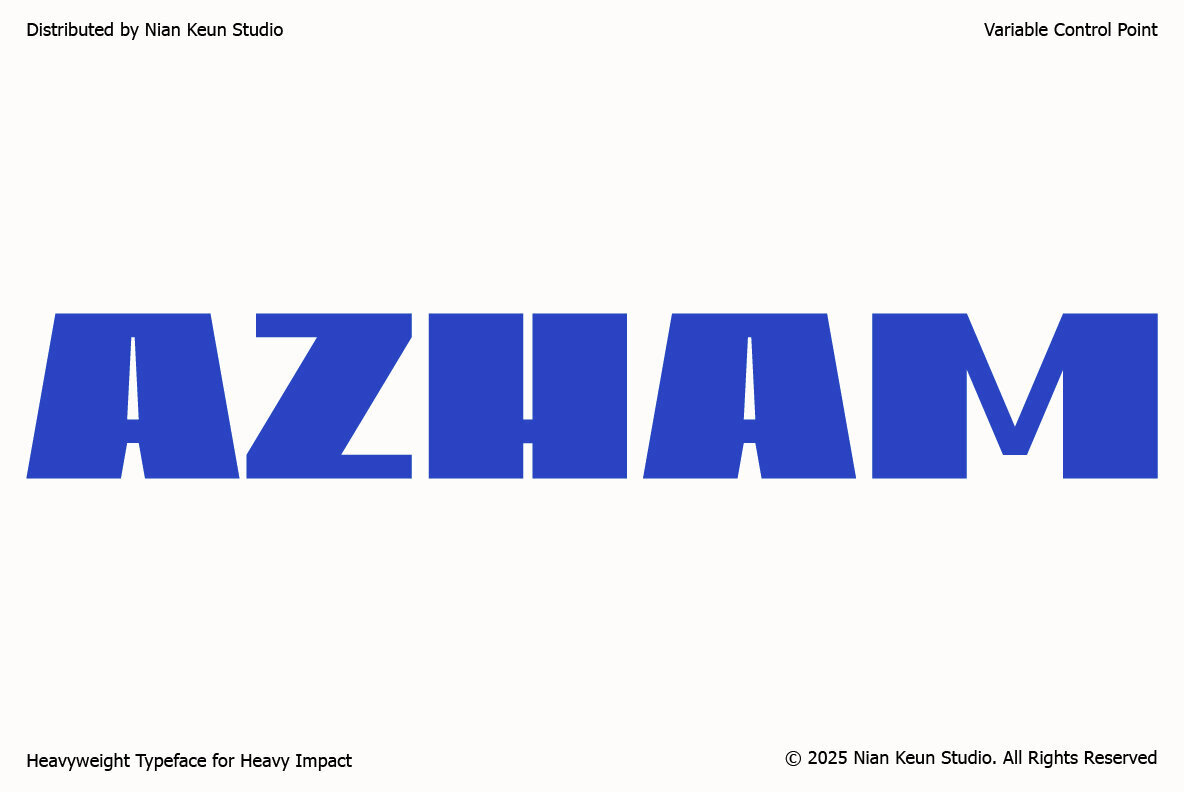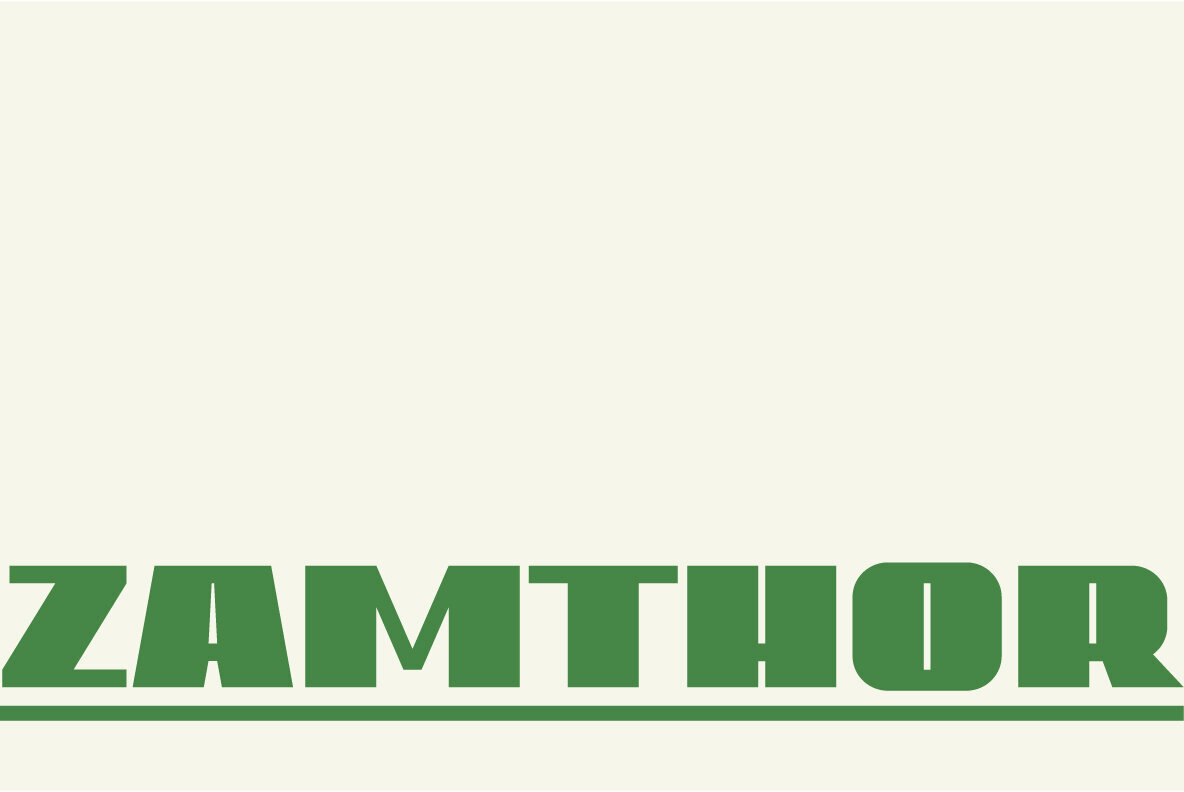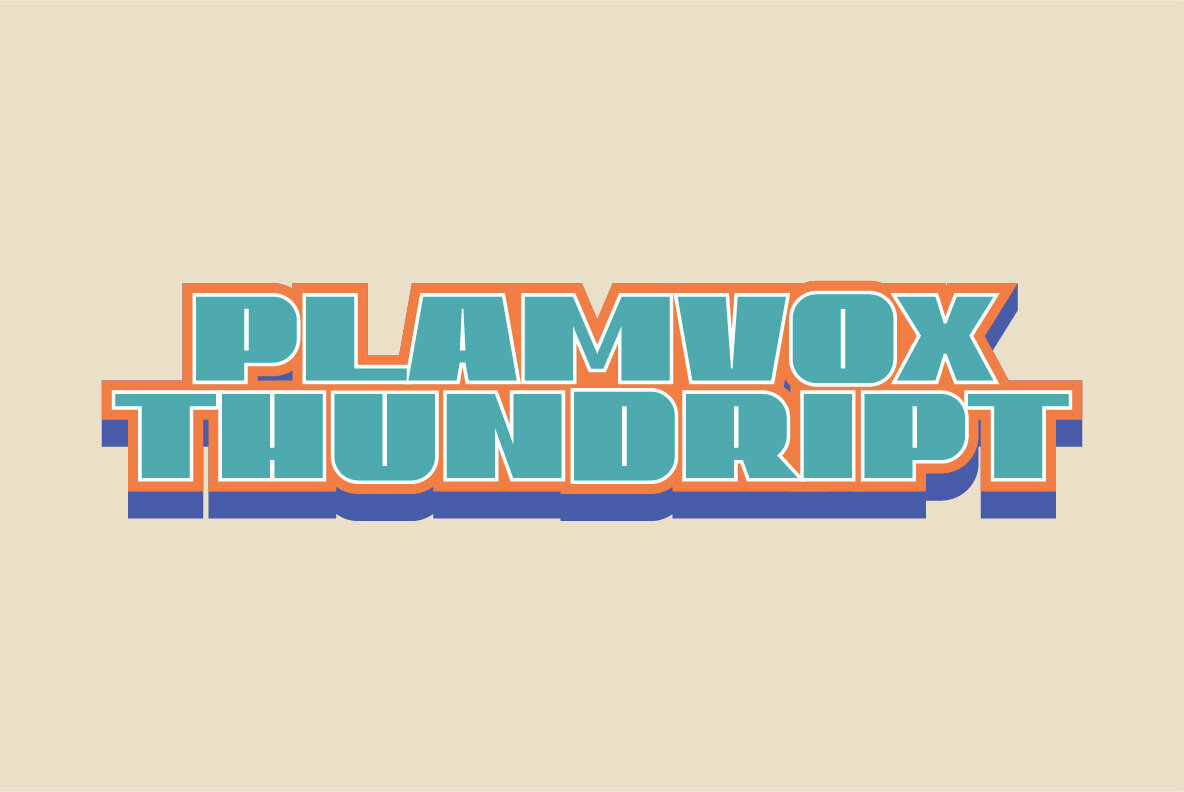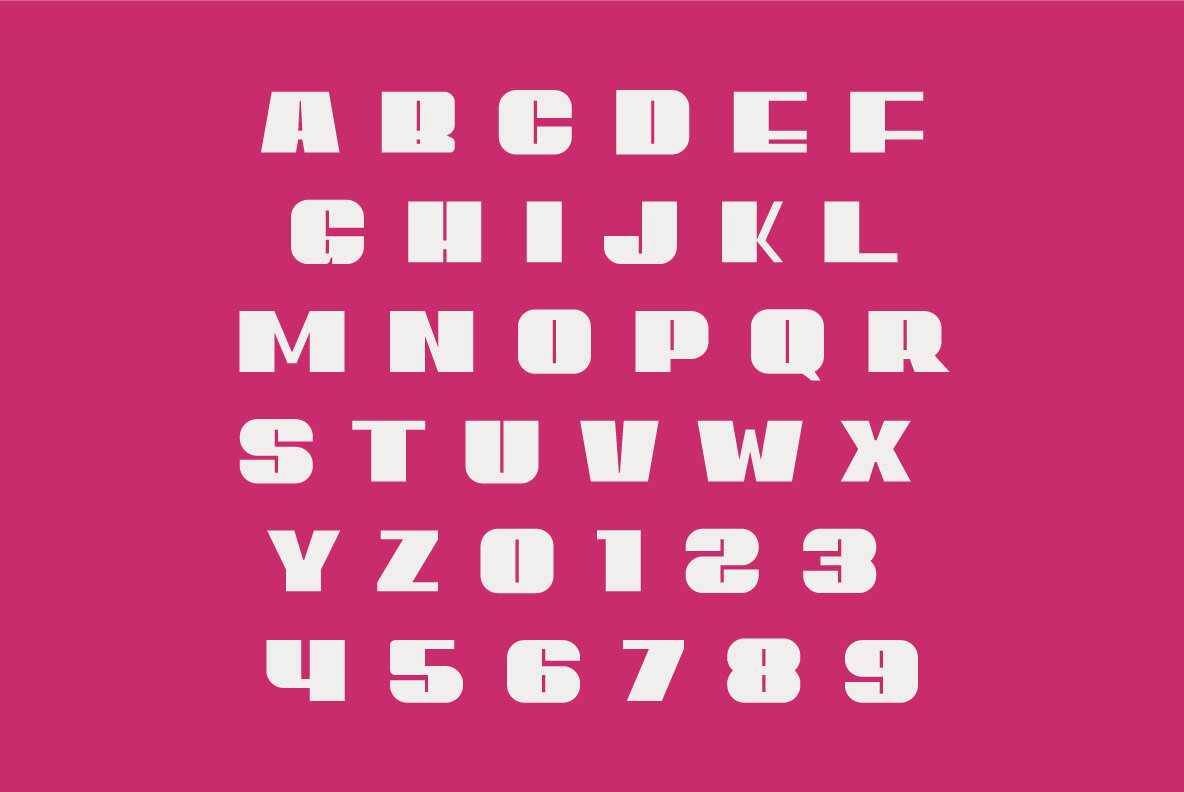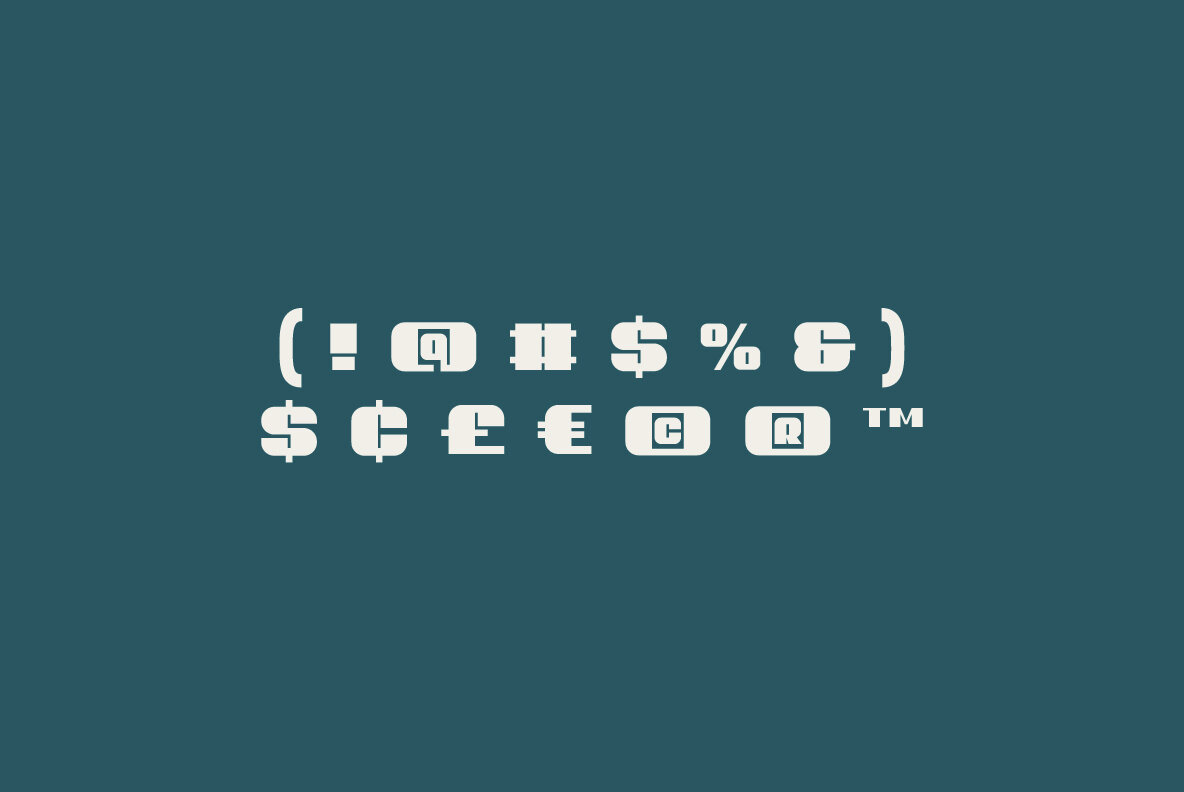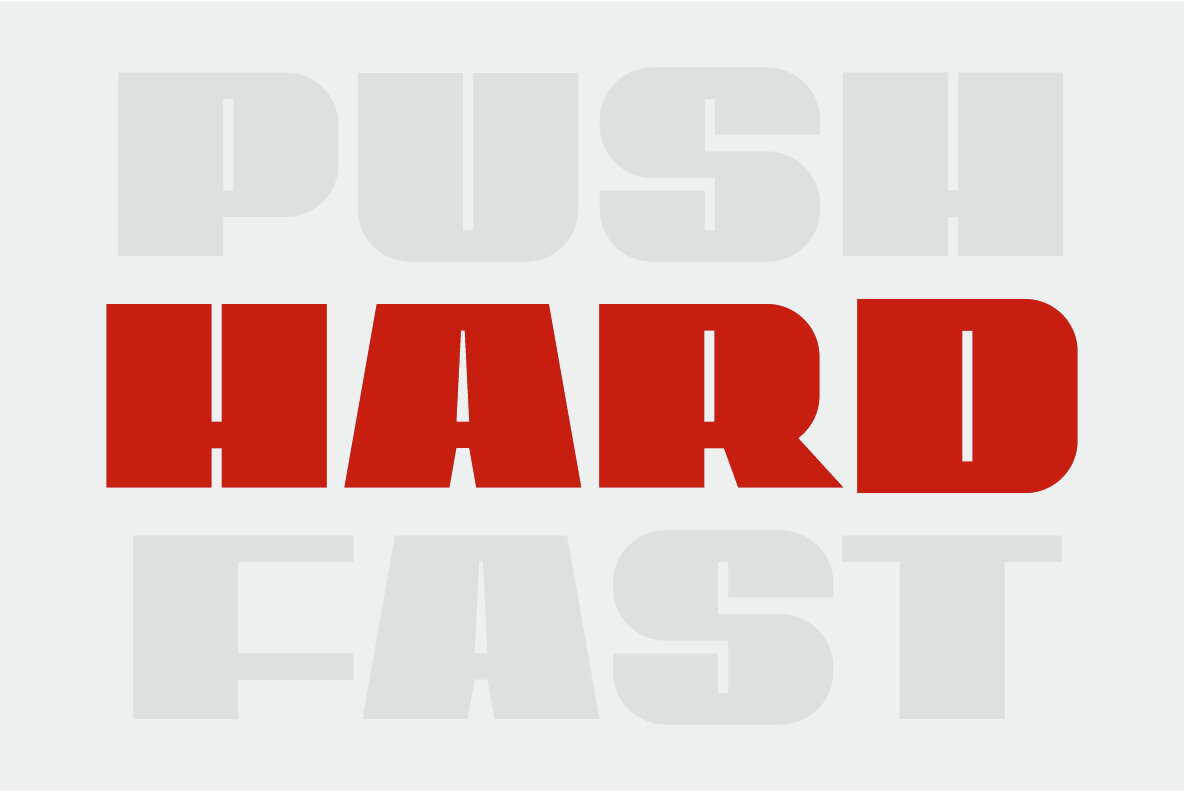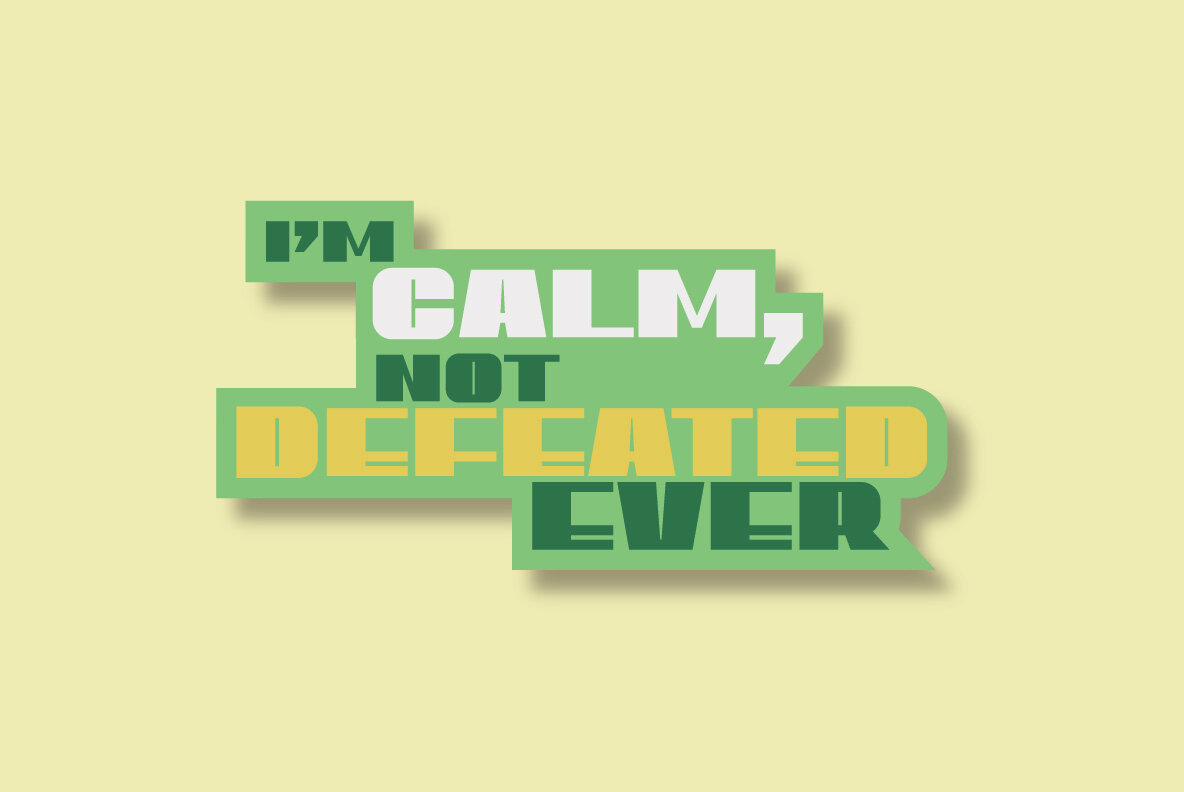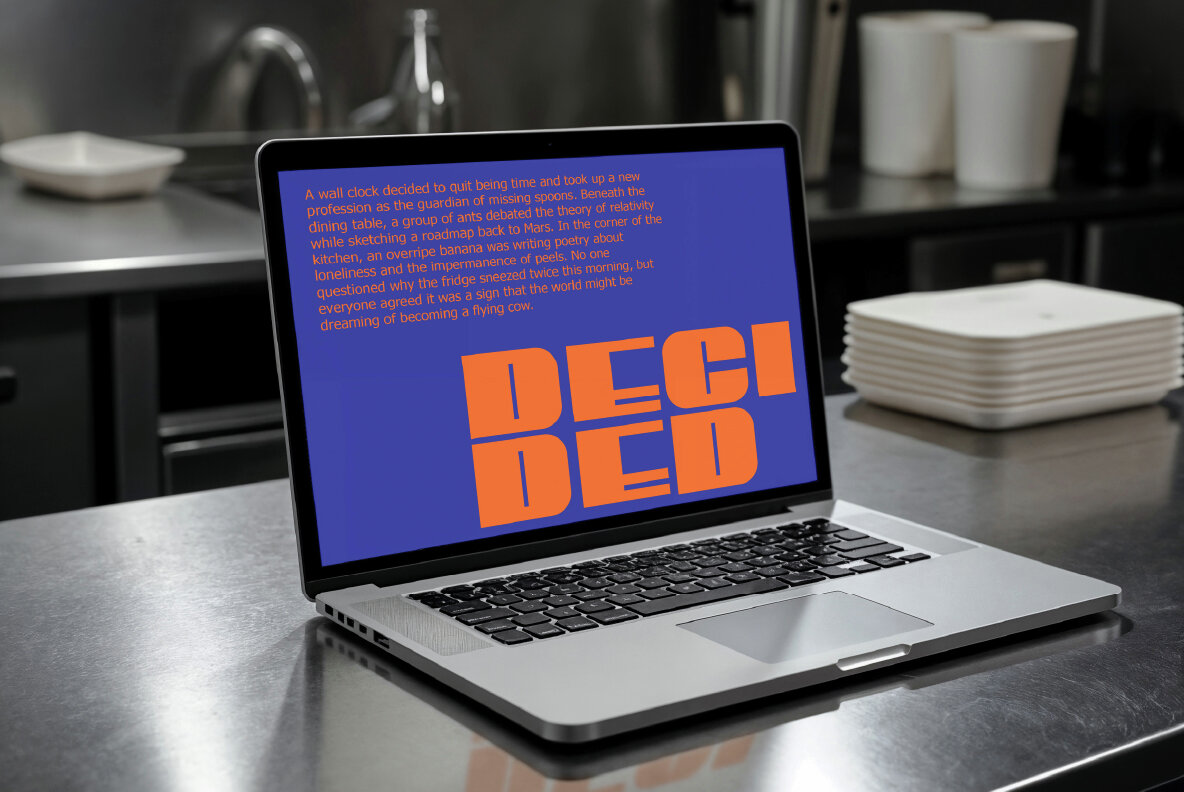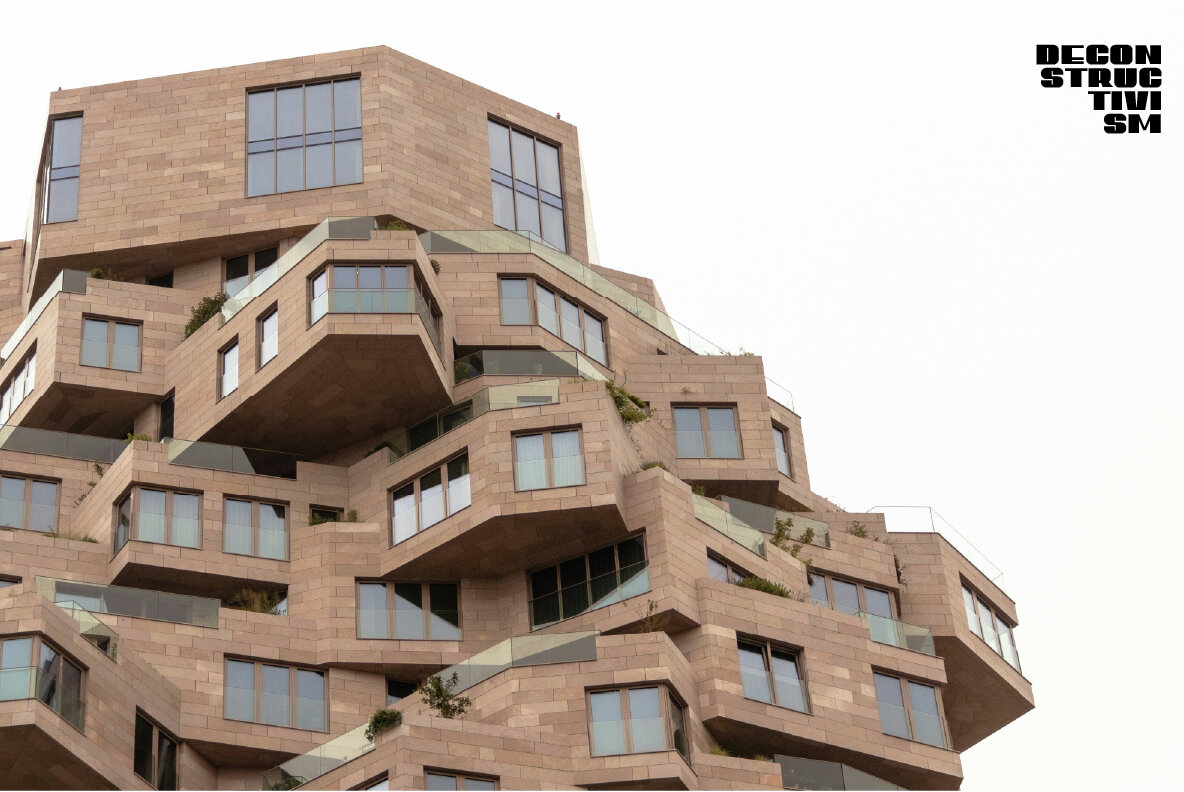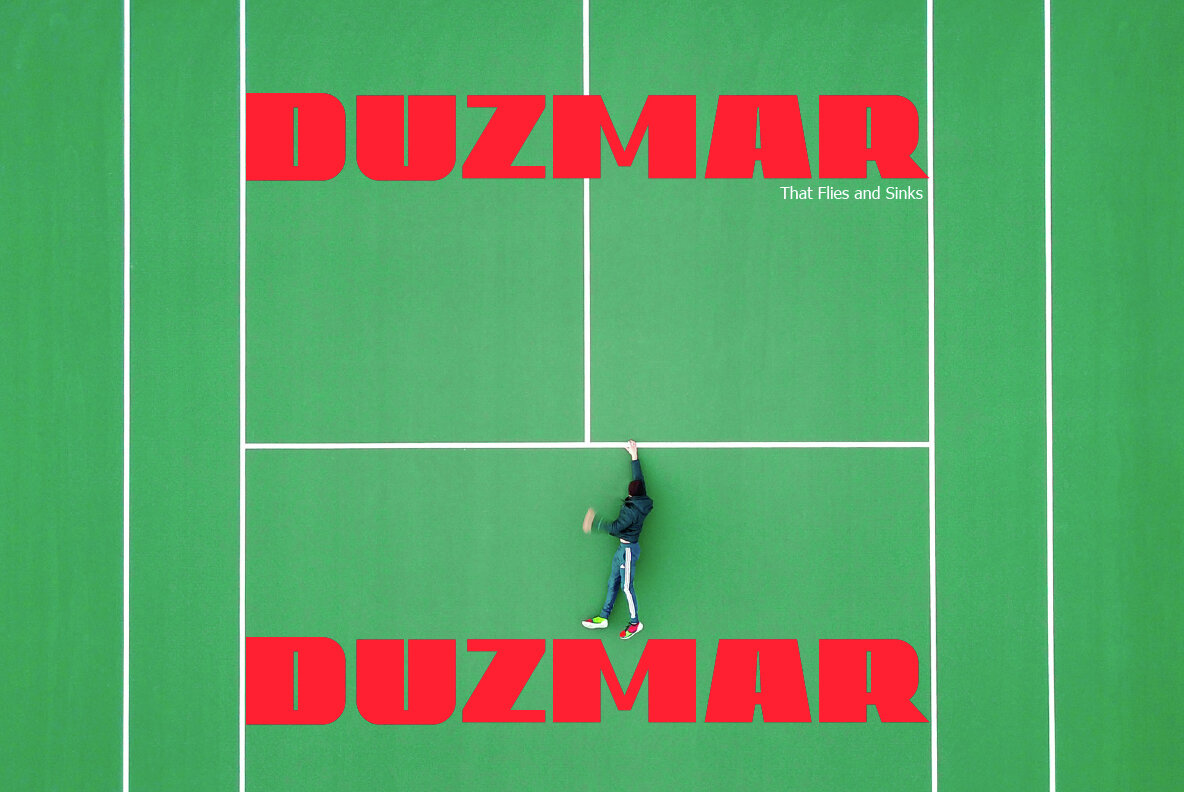
Azham
Azham is a heavyweight display font designed to captivate with its striking visual presence. Characterized by bold letterforms and balanced geometric shapes, this typeface commands attention in any layout. Ideal for posters, headlines, branding, packaging, and digital media, Azham offers clarity and power in every letter, making it a versatile choice for designers seeking to make a statement.Azham: A Bold Display Typeface for Impactful Designs